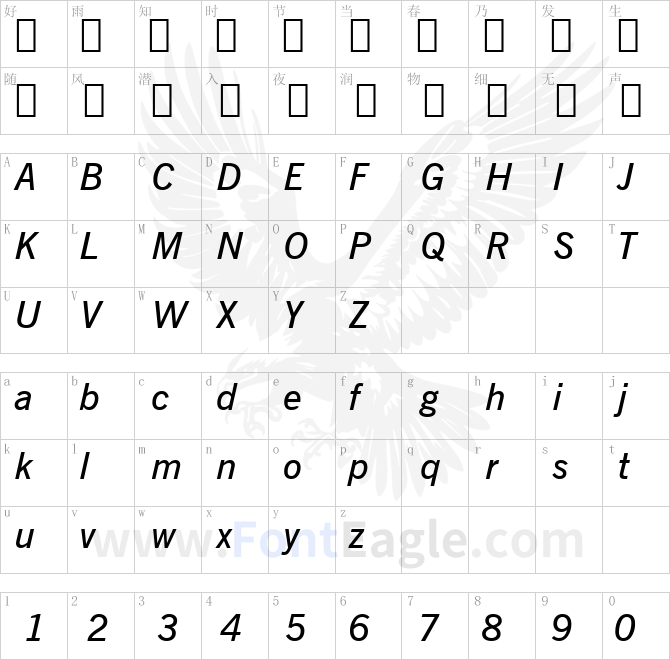
- Font name:NewsGoth Dm BT
- Font Subfamily:Demi Italic
- Font Subfamily ID:News Gothic Demi Italic, Gothic 731
- Font Full Name:News Gothic Demi Italic BT
- Font Version:mfgpctt-v1.59 Friday, March 5, 1993 12:18:19 pm (EST)
- Postscript:NewsGothicBT-DemiItalic